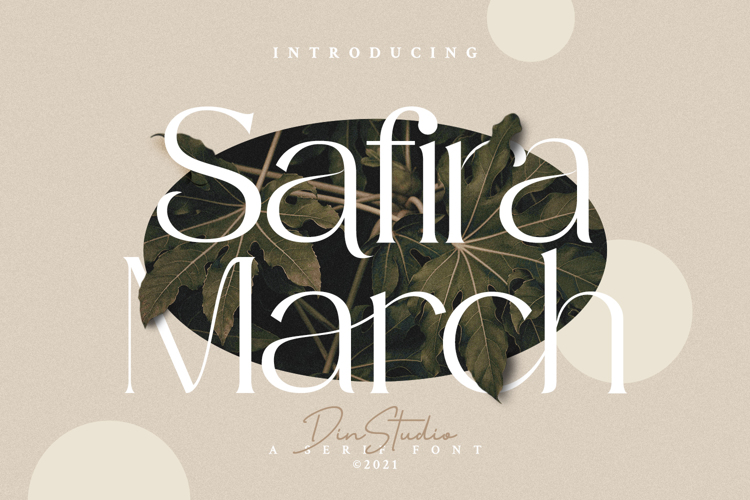
Safira March Font
Safira March. It’s a beautiful font that will captivate your audience and make your promotions and projects stand out. It comes with nine different font weights. With Safira March, you can bring your branding to life while also adding modernity and style. Use it to create headings, logos, business cards,
printed quotes, various types of invitations, cards, packaging, and branding for your website or social media accounts.
Features include:
• Alternates
• Ligatures
• Multilingual Supports
• Numerals and Punctuations